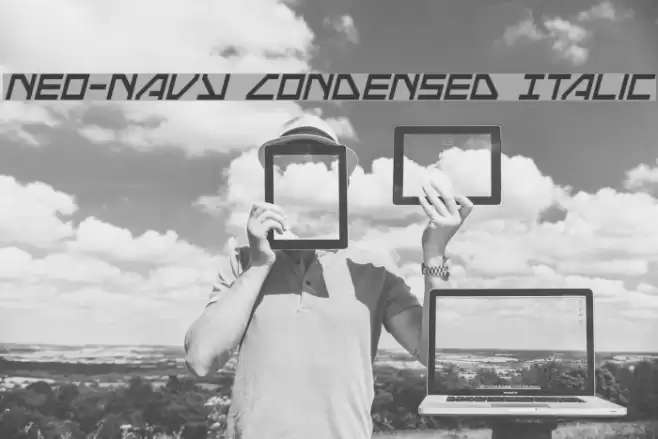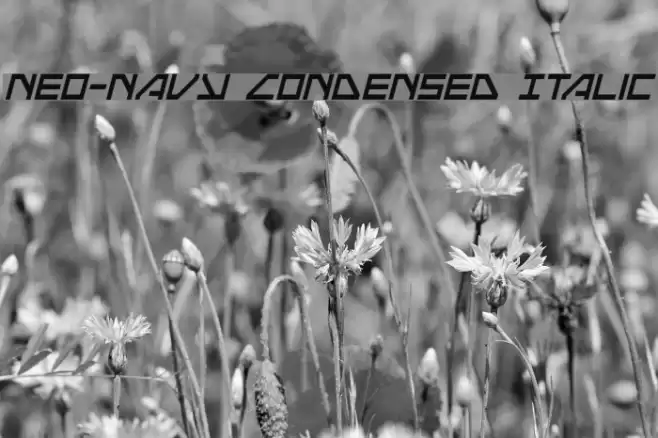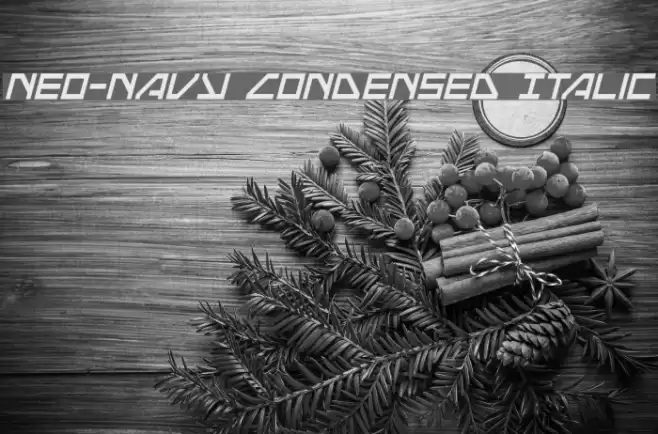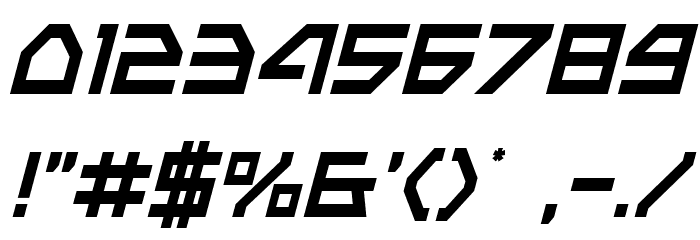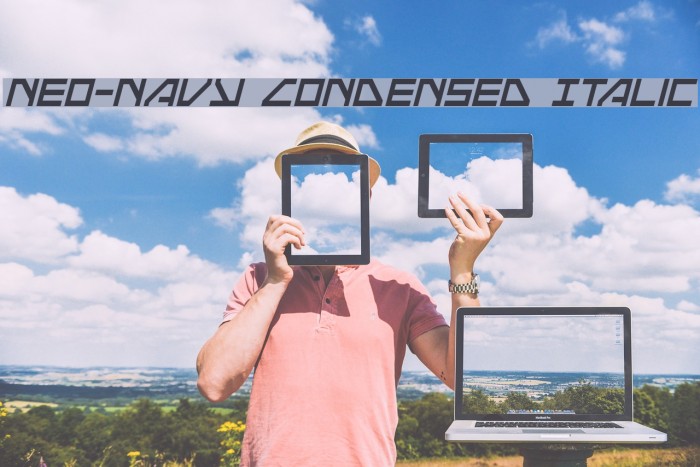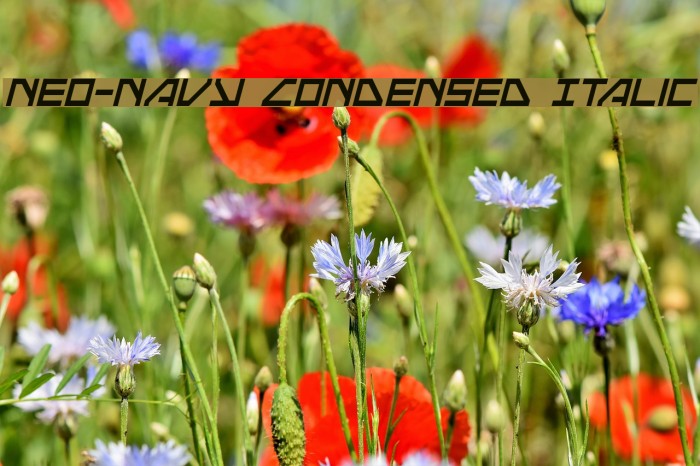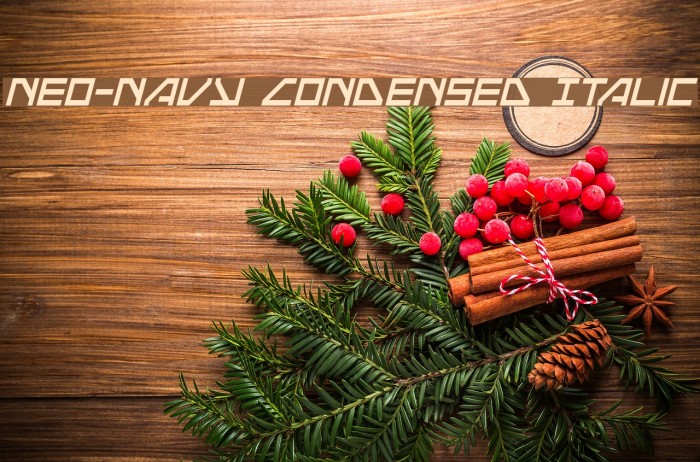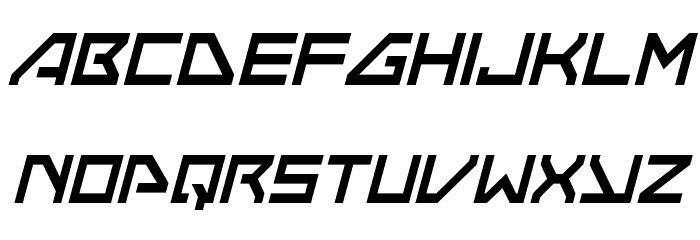
Neo-Navy Condensed Italic Font
Neo-Navy Condensed Italic Description
This font features a futuristic and angular design, characterized by its sharp edges and geometric shapes. The letters are condensed and italicized, giving a sense of motion and modernity. The uppercase and lowercase letters maintain a consistent style, with a unique slant that adds to its dynamic appearance. Numbers and special characters follow the same design principles, ensuring uniformity across all glyphs. The font's boldness and distinct angles make it stand out, suitable for projects that require a strong visual impact.
A futuristic, angular, condensed italic font with a bold and dynamic style from Uncategorized fonts.
- Proposed Projects: Ideal for sci-fi themed designs, technology branding, video game titles, and modern advertising.
- Character Spacing: Tight